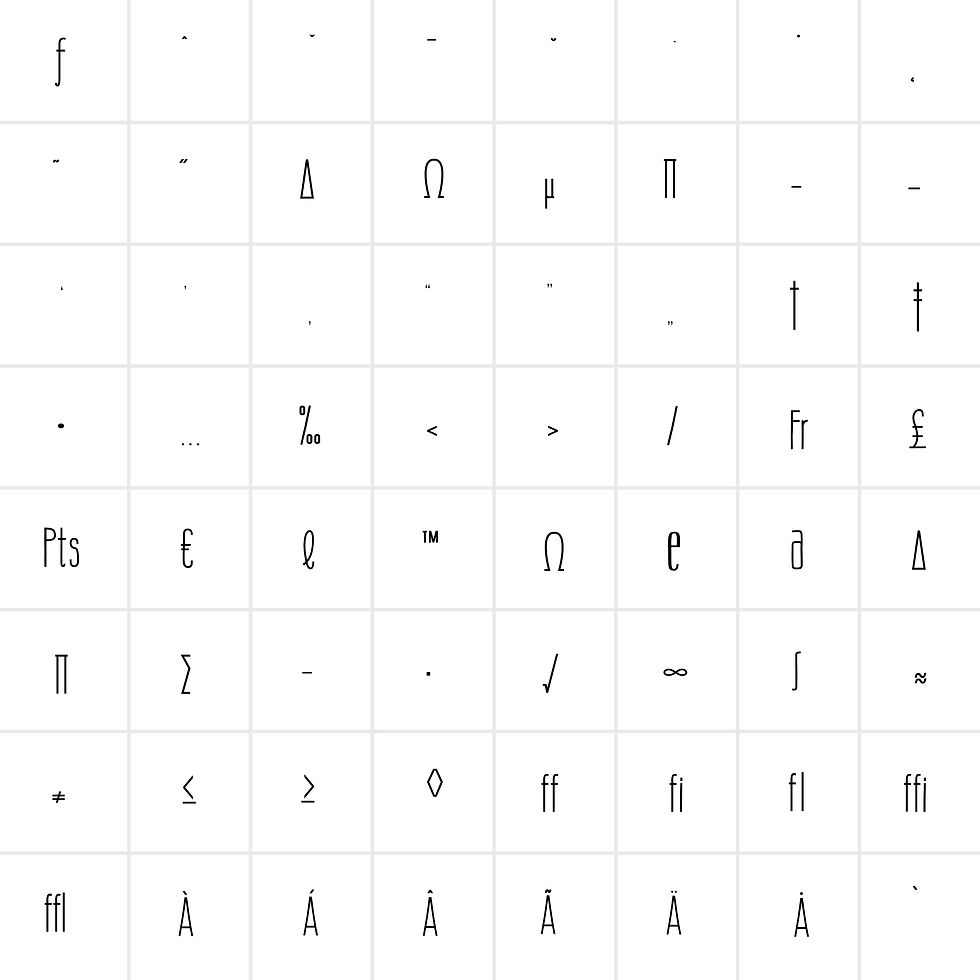
MAISY BLACK BASIC FONT is a fun, geometric font with Latin Pro Characters. Use Maisy font for fashion, marketing, books, websites, magazines, film and television.
Maisy Black Basic Font